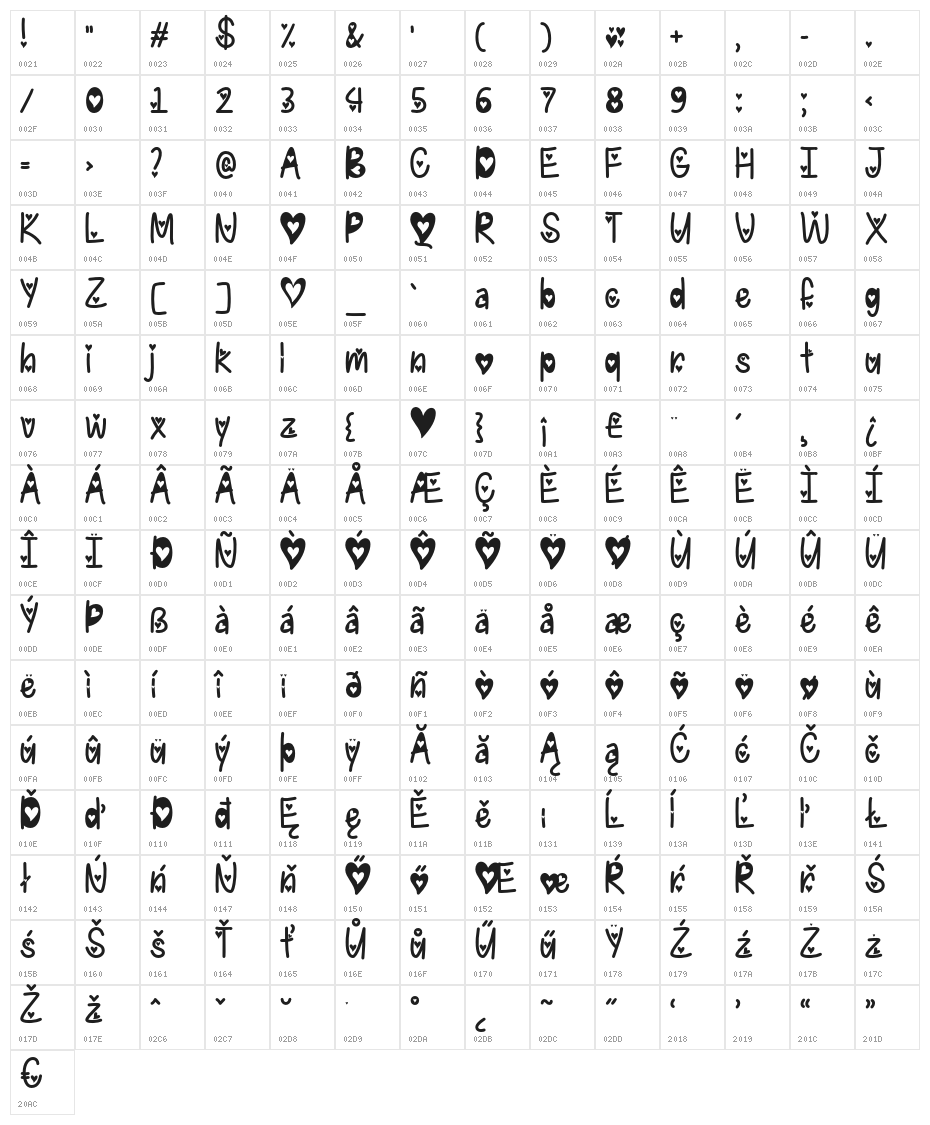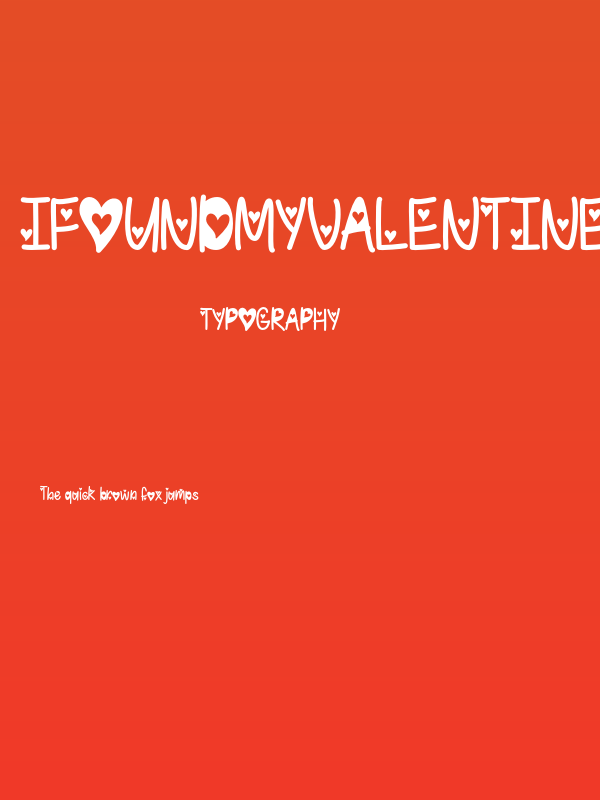
IFoundMyValentineHearted Font
IFoundMyValentineHearted Description
This playful and romantic font features heart shapes integrated into the design of each character, creating a whimsical and affectionate appearance. The uppercase and lowercase letters are bold and rounded, with hearts replacing certain elements like the counters or dots, adding a unique charm. The numbers and special characters maintain this theme, ensuring a cohesive look throughout. The overall style is decorative and fun, making it ideal for projects that aim to convey love, joy, and creativity. The font's design is perfect for Valentine's Day themes, wedding invitations, or any project that requires a touch of romance.
| Proposed Projects | Ideal for Valentine's Day cards, wedding invitations, romantic event posters, and playful branding. |